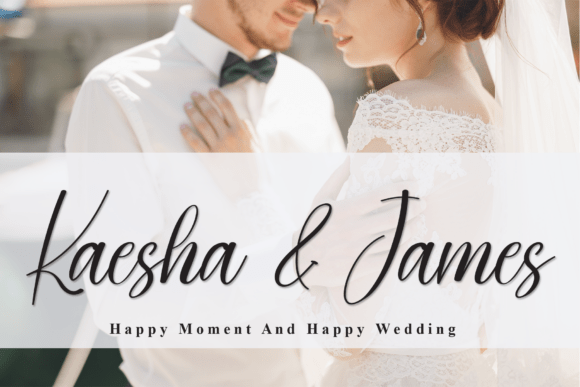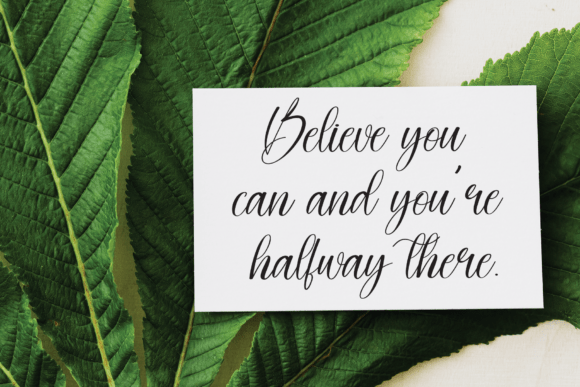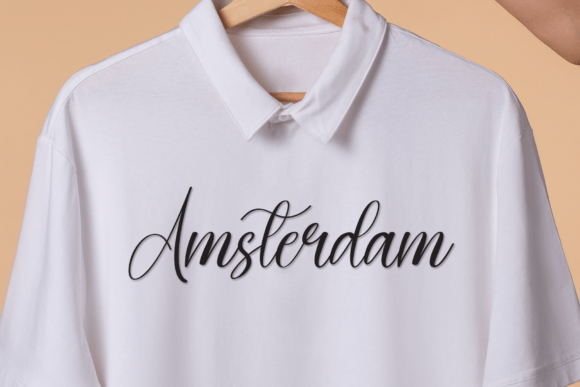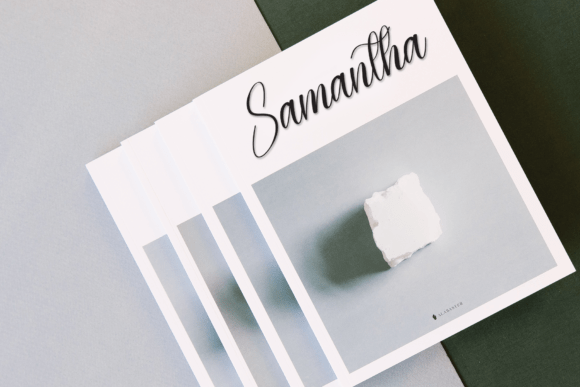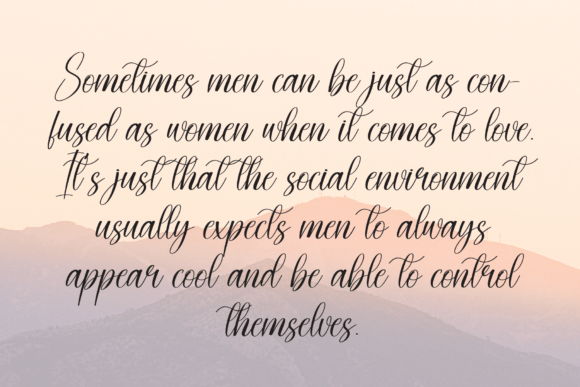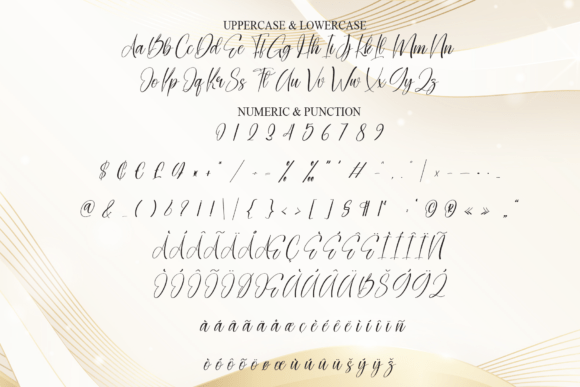
The Quest for the Perfect Font: Discovering Authentic
I still remember the countless hours I spent searching for the perfect font for a wedding invitation project. My client wanted something elegant, yet playful; something that would capture the essence of their special day. I scrolled through page after page of Google results, tried out font after font, but nothing seemed quite right. That was until I stumbled upon Authentic, a stylish handwritten script font that radiates fresh elegance and delicate charm. In this article, I’ll share my journey with Authentic, its features, and how to make the most of this beautiful font.
An Honest Review of Authentic
- ✨ Elegant and flowing strokes that add a touch of sophistication to any project
- ✅ Delicate charm that’s perfect for invitations, branding, and seasonal designs
- 💫 Fresh and uplifting feel that’s sure to capture the attention of your audience
- 🎨 Highly versatile and can be used for a wide range of creative projects
While Authentic is an amazing font, there are a few things to keep in mind:
- 🤔 Some users may find the font a bit too delicate for certain projects, such as bold or large-scale designs
- ⚠️ As with any script font, it may not be the best choice for body text or long blocks of content
The Story Behind Authentic
Authentic was designed by a team of typographers who wanted to create a font that would evoke a sense of renewal and elegance. Inspired by traditional calligraphy and handwriting, they crafted a font that’s both beautiful and functional. With its delicate charm and flowing strokes, Authentic is perfect for designers, crafters, and creative hobbyists who want to add a touch of sophistication to their projects.
Q: What is Authentic font?
A: Authentic is a stylish handwritten script font that’s perfect for invitations, branding, and seasonal designs.
Q: Is Authentic suitable for body text?
A: While Authentic is a beautiful font, it’s not recommended for body text or long blocks of content. It’s best used for headlines, titles, or short paragraphs.